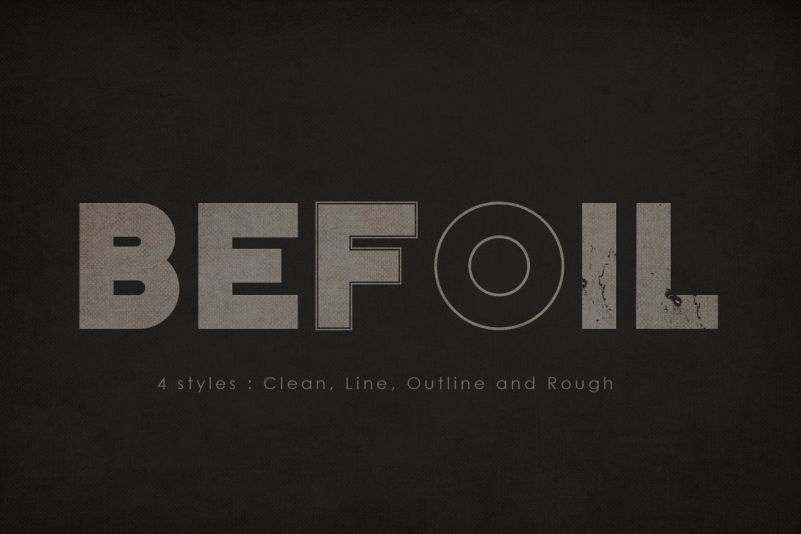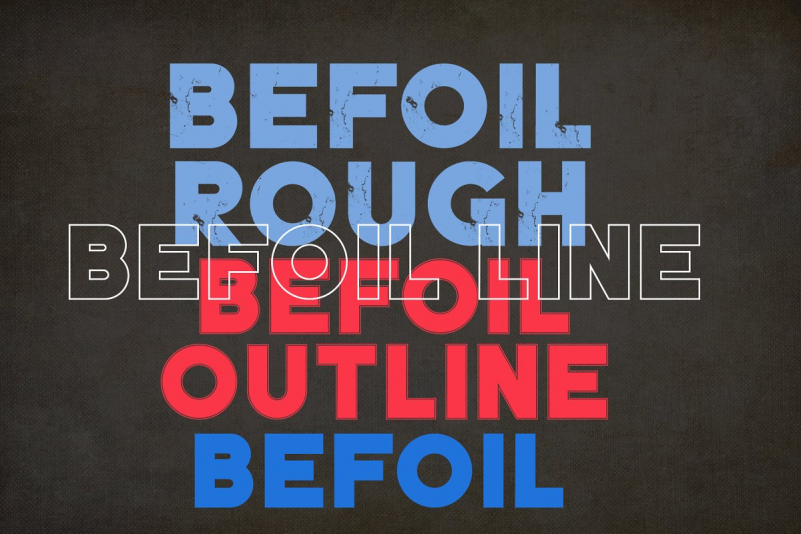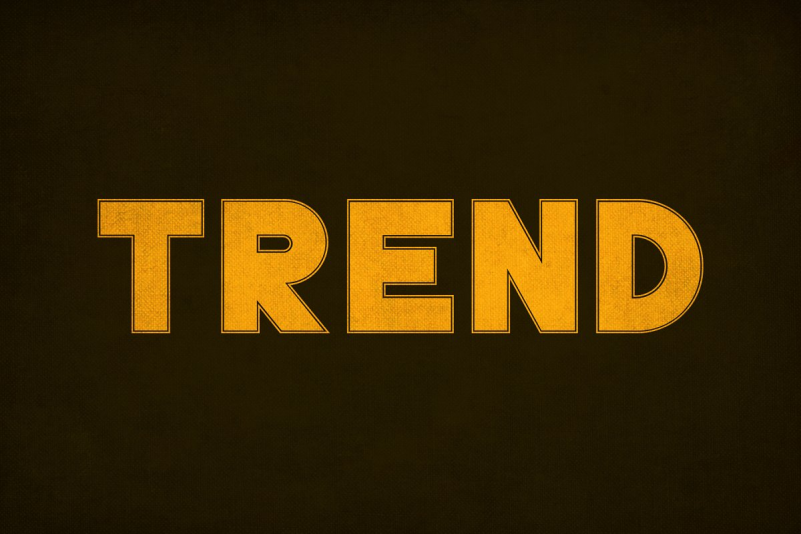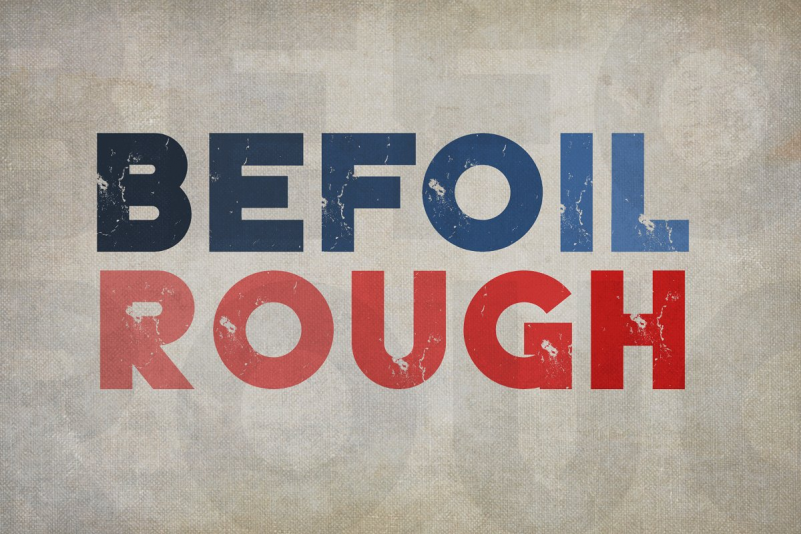
BEFOIL FONT
BEFOIL is a sans bold font, has strong and firm characters,BEFOIL provides a clear and elegant look for logos, quotes, advertisements, and more. BEFOIL is a versatile typography full of the characters you want. with BEFOIL you work.
BEFOIL has style standards, Stylistic Alternate and ligatures. and includes uppercase letters, numbers and punctuation.
BEFOIL have a family:
BEFOIL Normal BEFOIL Line BEFOIL Outline BEFOIL Rough Multilingual support for various languages including: French, German, Spanish, Portuguese, Italian, Dutch, Finnish, Swedish, and more.